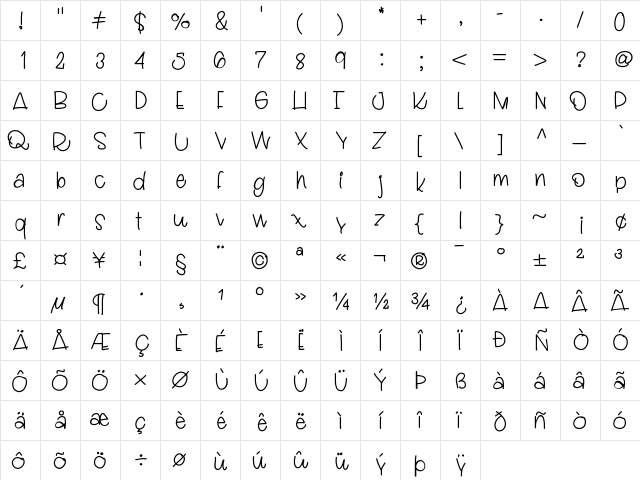
Ladybugletters Medium
Design Context for Ladybugletters Typeface
Ladybugletters is a composed and adaptable typeface that performs quietly and consistently across a wide range of design contexts.